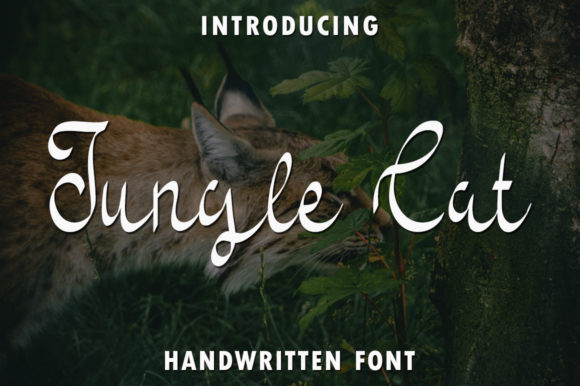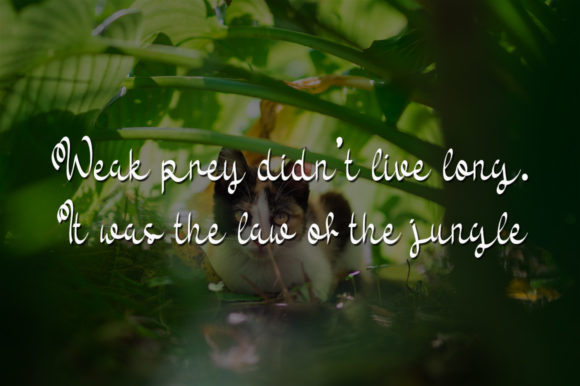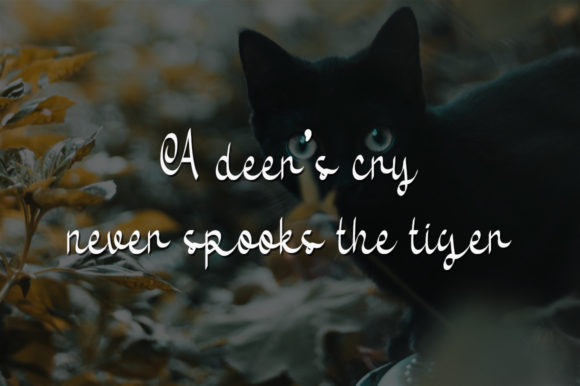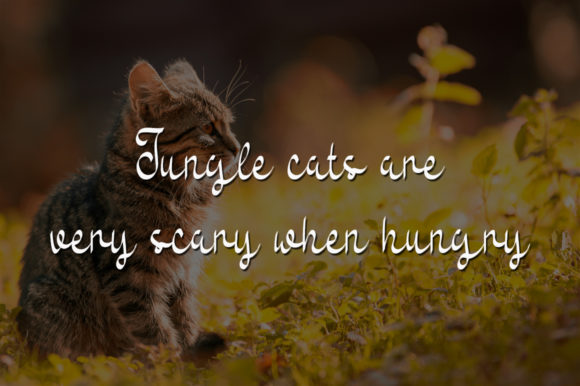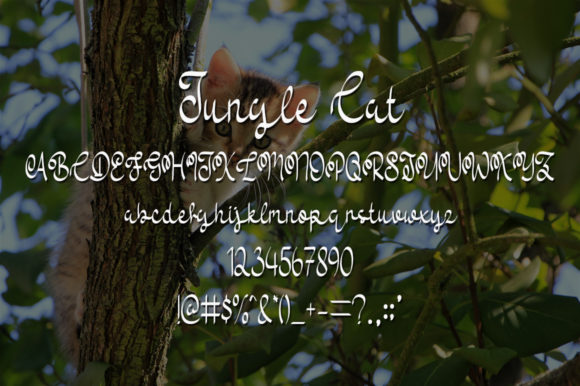
Jungle Cat Font
About Jungle Cat Font
Jungle Cat is a casual handwritten font that adds a touch of playfulness and uniqueness to your designs. With its organic and free-flowing letterforms, this font brings a sense of informality and creativity to any project.
The casual nature of Jungle Cat makes it perfect for designs that aim to convey a relaxed and approachable vibe. It is well-suited for a variety of creative applications, such as social media graphics, posters, invitations, greeting cards, and more. Whether you’re designing for personal projects or professional branding, Jungle Cat can add a distinct and memorable flair.
The hand-drawn appearance of Jungle Cat gives it a natural and authentic feel. It emulates the spontaneity of handwriting, capturing the imperfections and quirks that make each letter unique. This adds character and personality to your designs, making them stand out from more formal or rigid typography.
The versatility of Jungle Cat allows it to be used in various design styles. It pairs well with both bold and delicate elements, creating interesting visual contrasts. You can experiment with different colors, sizes, and layering effects to further enhance the playful nature of the font.
One of the advantages of Jungle Cat is its ability to evoke a sense of adventure and nature. The name itself conjures images of lush jungles and exotic wildlife. This makes the font particularly suitable for projects related to travel, outdoor activities, or any theme that requires a touch of adventure.
Whether you’re designing a logo for an outdoor brand, creating eye-catching social media posts, or crafting personalized stationery, Jungle Cat can help you achieve a unique and special look. Its casual and handwritten style brings a sense of creativity and authenticity to your designs, making them memorable and engaging.
In summary, Jungle Cat is a casual handwritten font that adds a unique and special touch to your designs. With its natural and playful appearance, it’s perfect for creating a relaxed and creative atmosphere. Whether you’re working on personal or professional projects, Jungle Cat will help you create designs that stand out and capture attention.